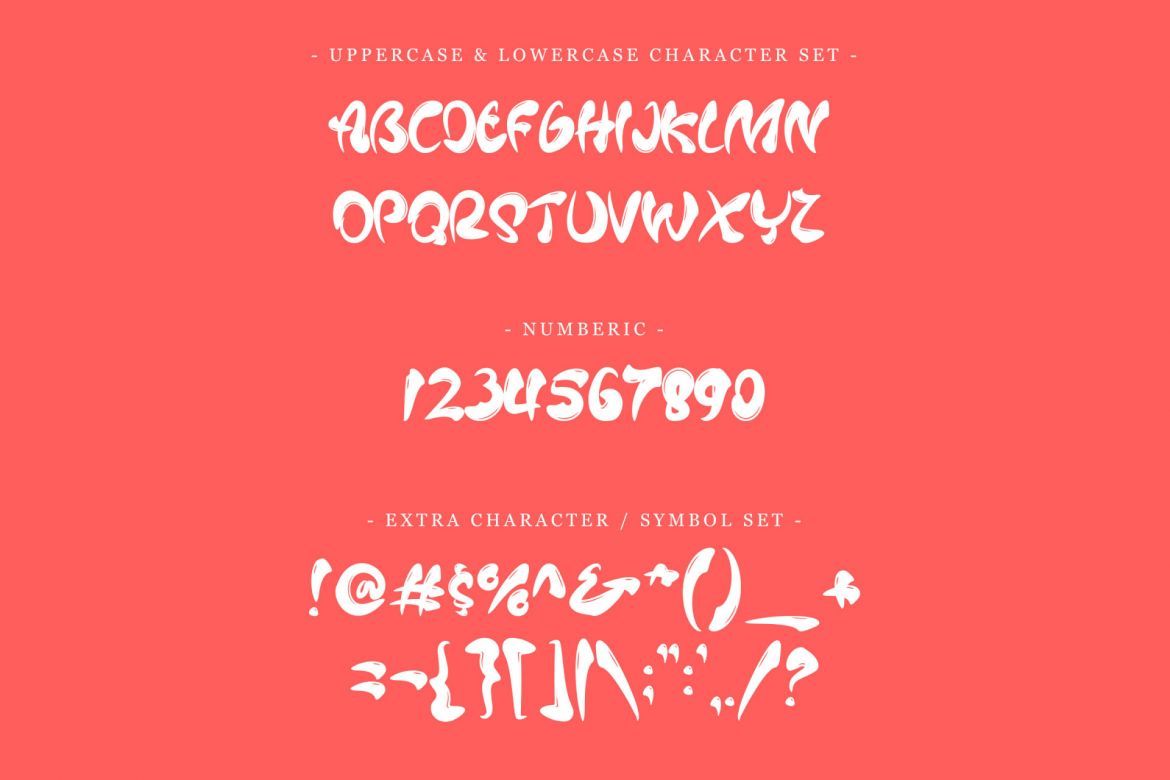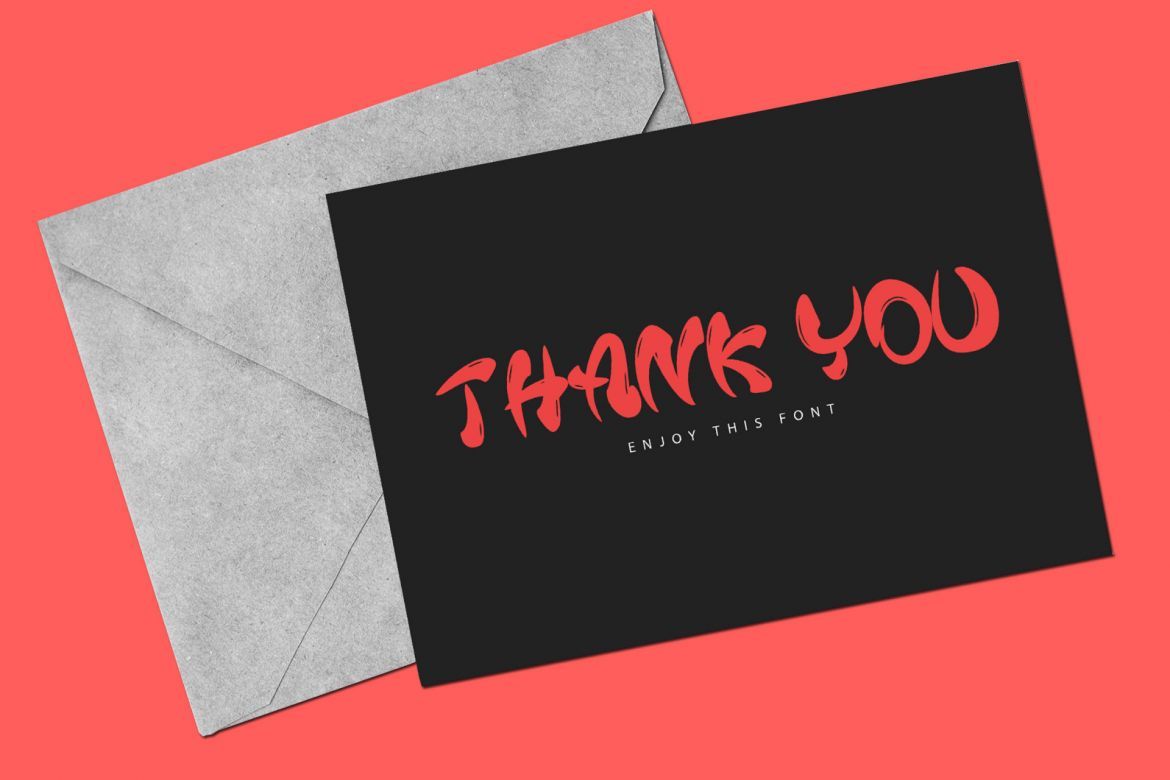
Mafieso - Playful Font
Introducing – Mafieso is a playful font and modern handwritten font script. This elegant and fancy font is stylish and versatile so you can use in a plethora of designs in both digital and print applications.